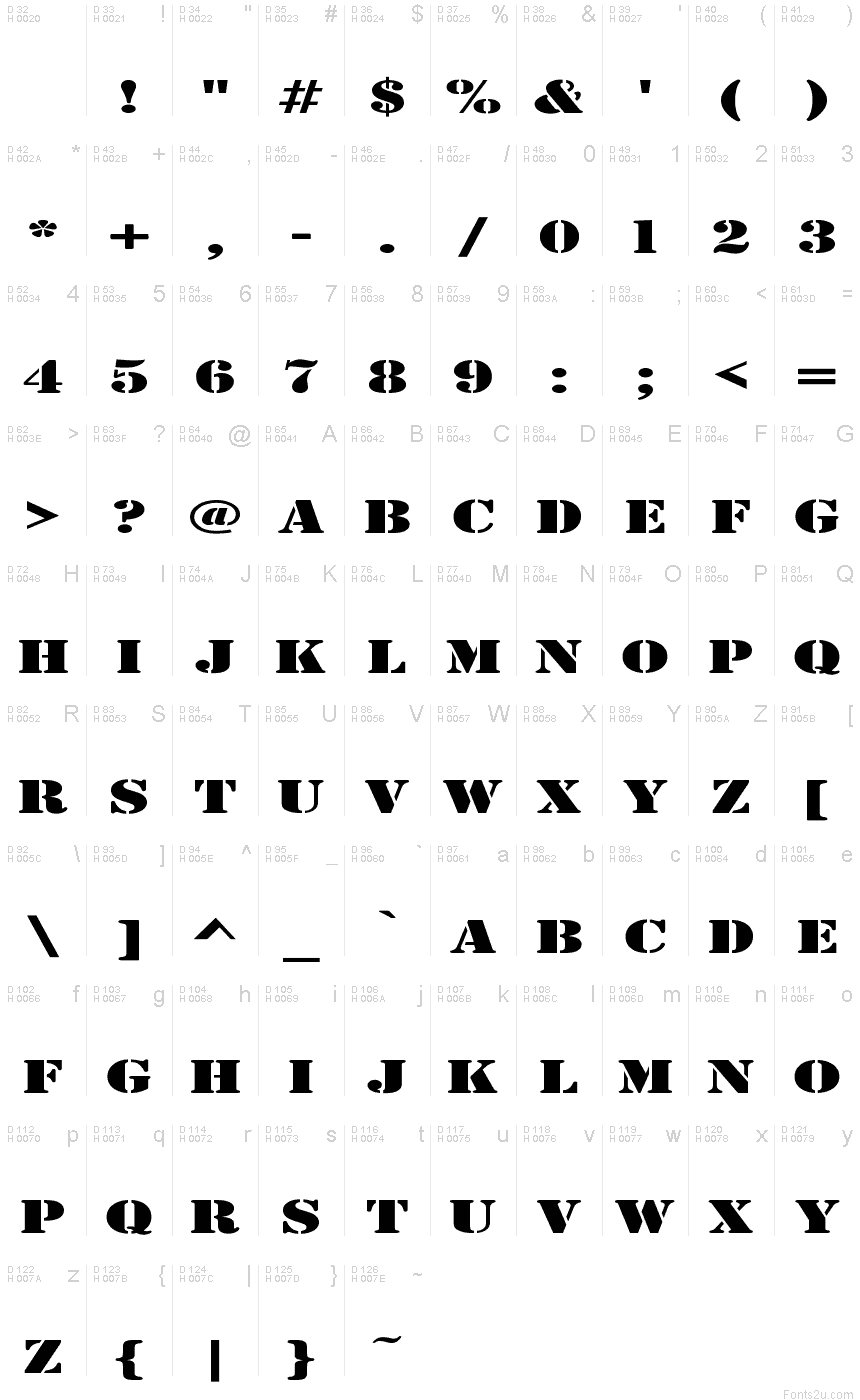
Army Expanded
Army Expanded font by Alltype is a free military display typeface in the Army family with bold, blocky forms that feel straight off a steel container or field crate. Its wide stance, heavy strokes, and sharp, cut-out details give each word a stamped, rugged presence, like ink pressed into rough canvas. The spacing feels tight and purposeful, so even short titles hit with maximum impact and a strong, disciplined rhythm.
Using Army Expanded, headlines snap into place on tactical posters, war-game covers, military-themed branding, recruitment materials, event signage, and rugged apparel graphics. This free font shines when you run it large and let the chunky silhouettes do the talking, then back it up with a clean grotesque sans serif for supporting text.